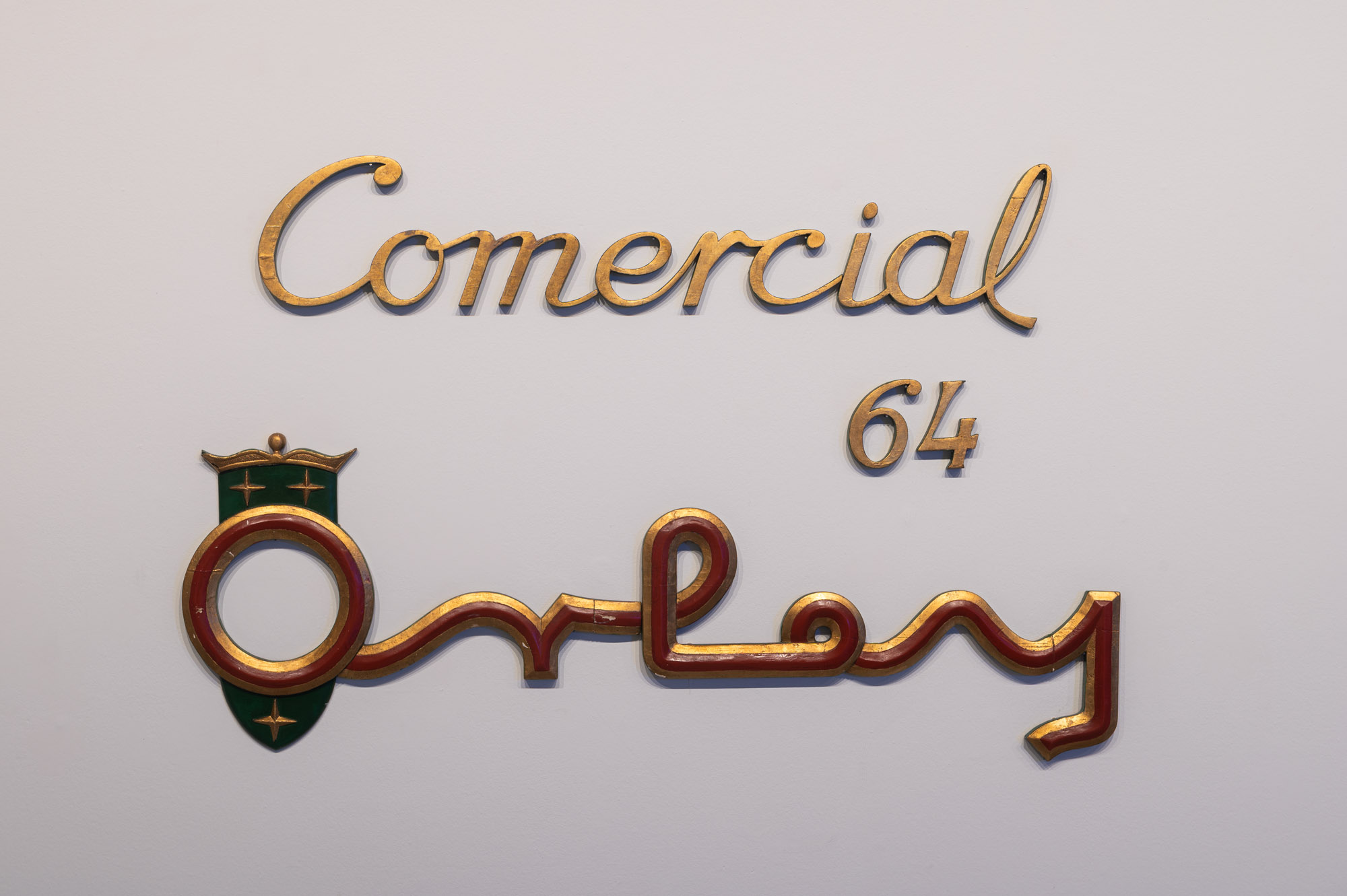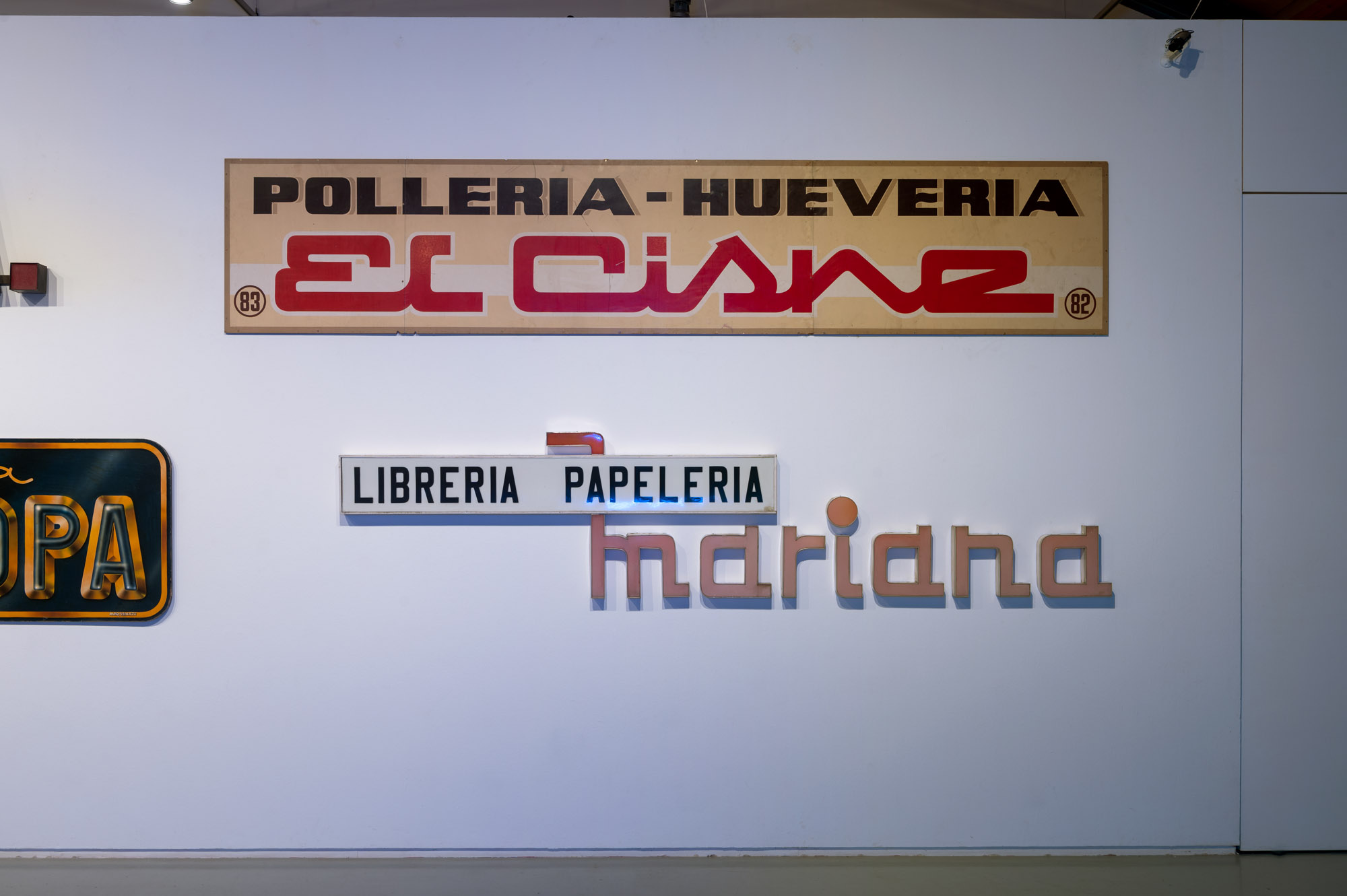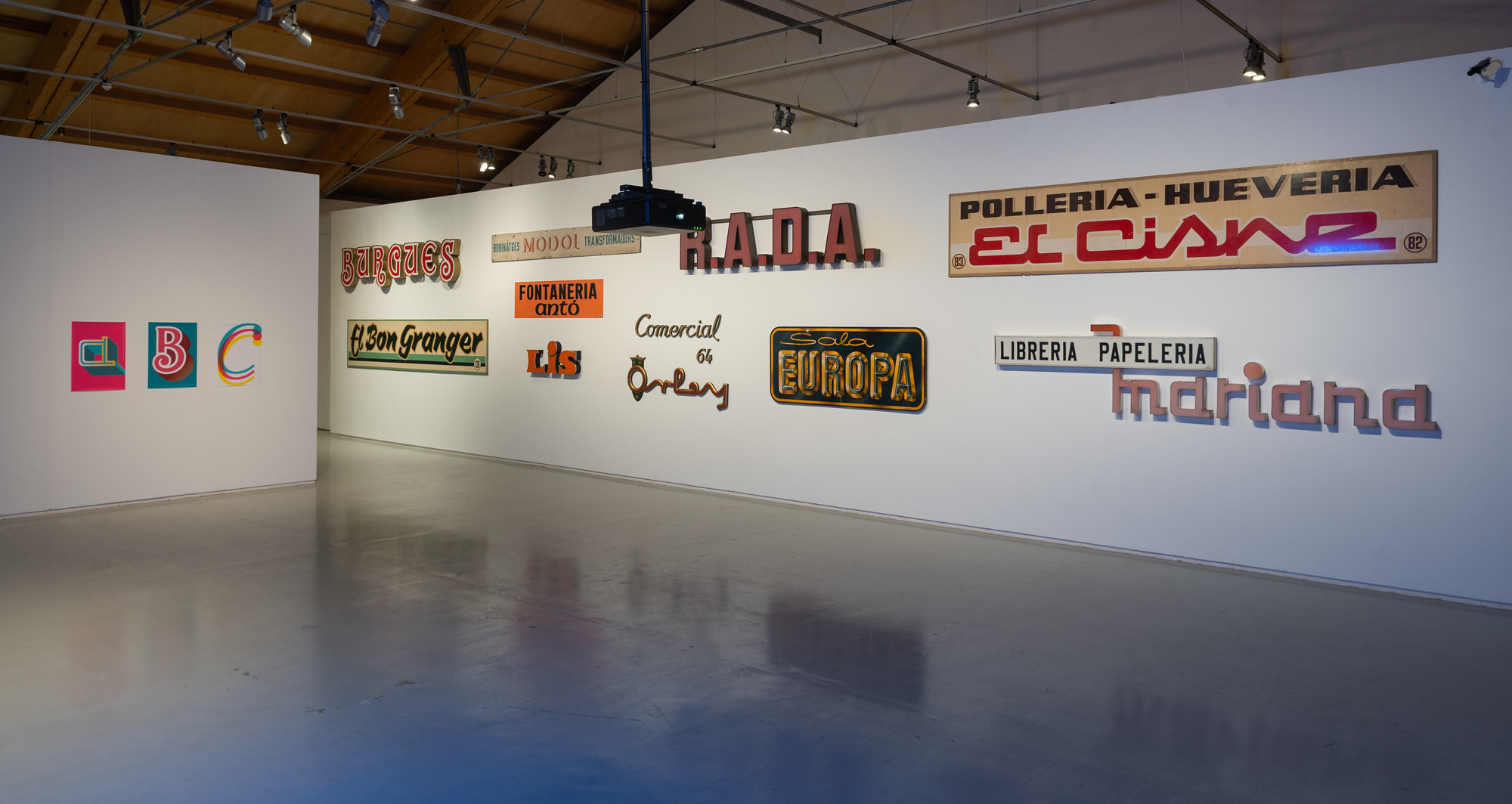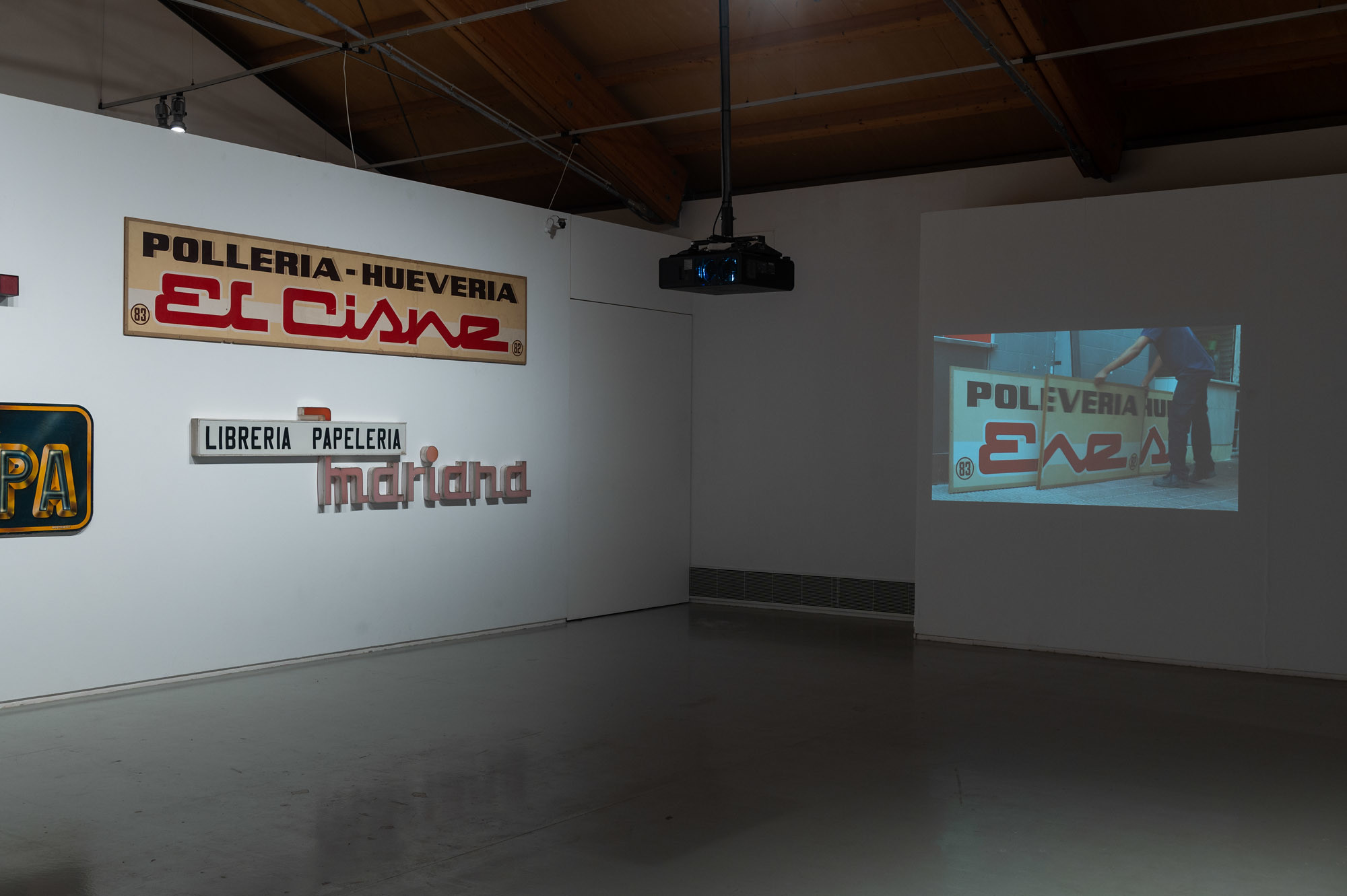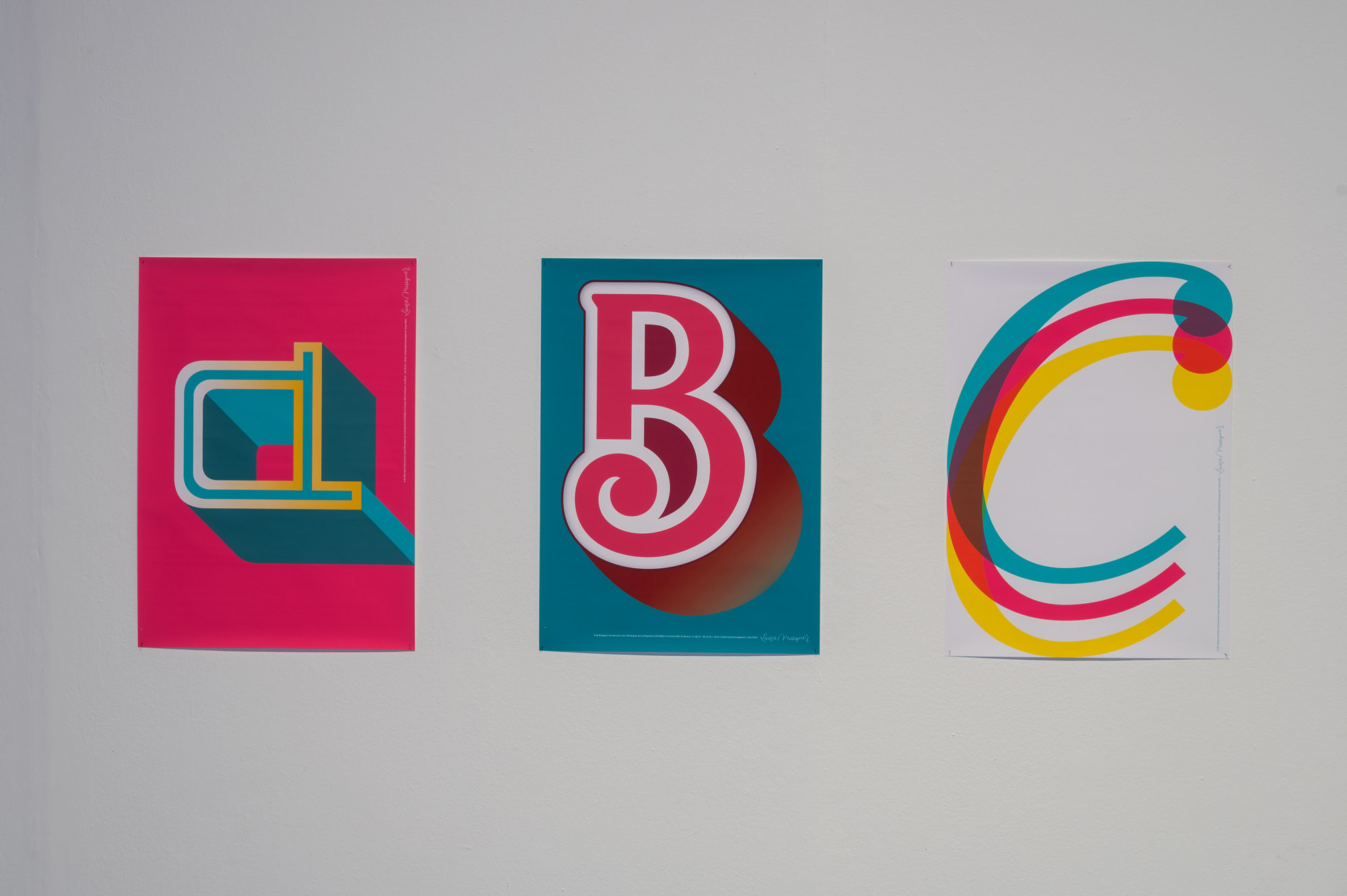
Invisible is a typographic installation that wants to highlight the value of the shop city signs and vindicates this graphic heritage as a cultural capital to be preserved. With this project, Meseguer gives an extraordinary representation of one of her usual practices which consists of walking, looking, photographing, documenting and collecting urban signs before they disappear in the process of transforming cities. “That type and signs enter the artistic space imply giving it the relevance it has and creates awareness about its cultural, social, historical and political role”. Meseguer, eager to make the universe of typography visible, close and comprehensible, masterfully connects it with other contemporary cultural practices.
The Exhibition at the Centre d’Art La Panera
Invisible happened at the Centre d’Art Contemporani La Panera in Lleida (Spain), where it had two parts, Invisible and Sisters. Lletres i paraules.
After revisiting the signs of shops in Lleida, still in operation, and others that have already disappeared, Laura proposed different actions. Ten lettering signs were temporarily displayed on a seventeen-meter wall, along with a video showing the process of rescue and recovery of those signs which enter the museum for the first time. The Invisible title is displayed with a custom-designed neon sign and some of Laura’s typefaces giving life to a text by the sociologist Mariona Lladonosa and the designer Pau Llop. There the visitors can discover typefaces such as Qandus Latin, or Sisters. The final intervention of Laura is the posters with the letters ABC, a new expression born from reinterpreting the signs of Lleida, as an alliance between the old and the new.
Sisters. Lletres i paraules
The exhibition had a small continuation for children in the miniPanera space . This is a facility to play with the Sisters typographic family. By building letters and words by parts of modules, kids (and not only kids) can understand how harmony plays a key role when designing alphabets, but also that imagination has no limits. The installation is provided with ten custom-designed stencil templates, the resulting parts after laser cutting them, a lightbox and a tiny library. With those kids can get inspired, read and create letters in many ways.
“Invisible” an exhibition by Laura Meseguer
Centre d’Art Contemporani La Panera. Lleida (Spain)